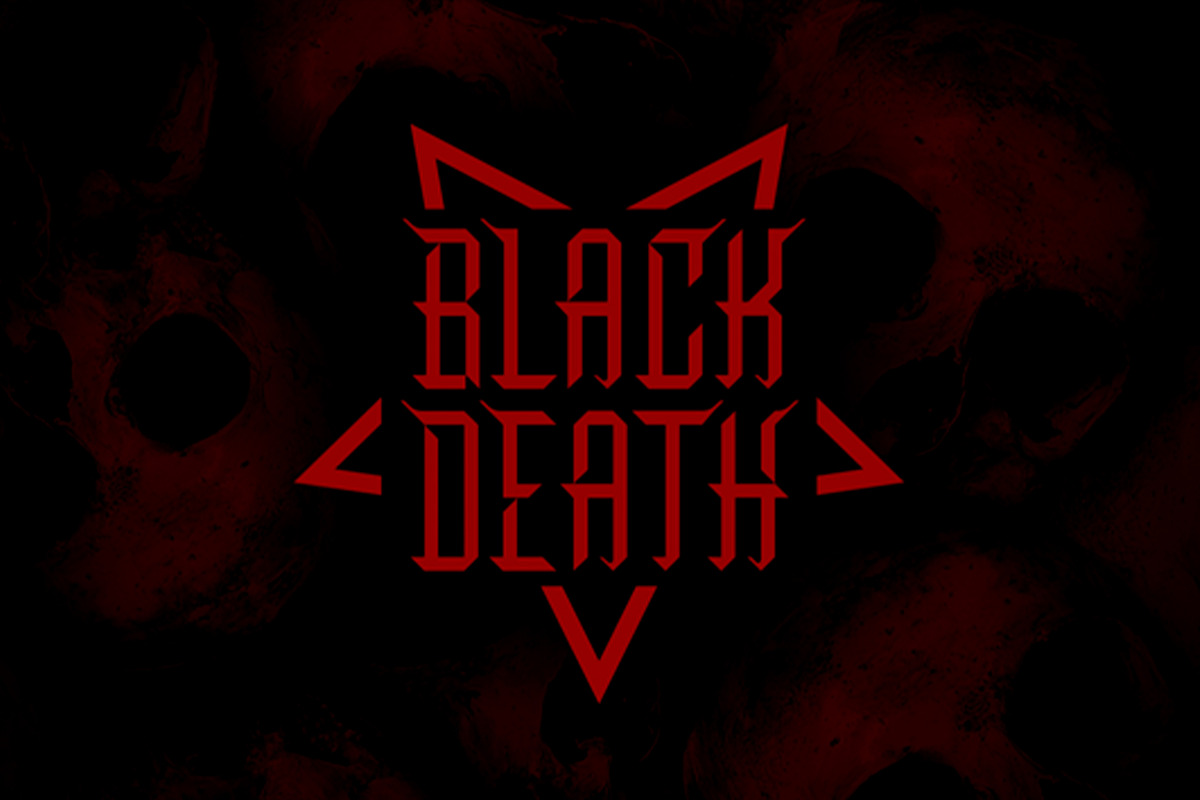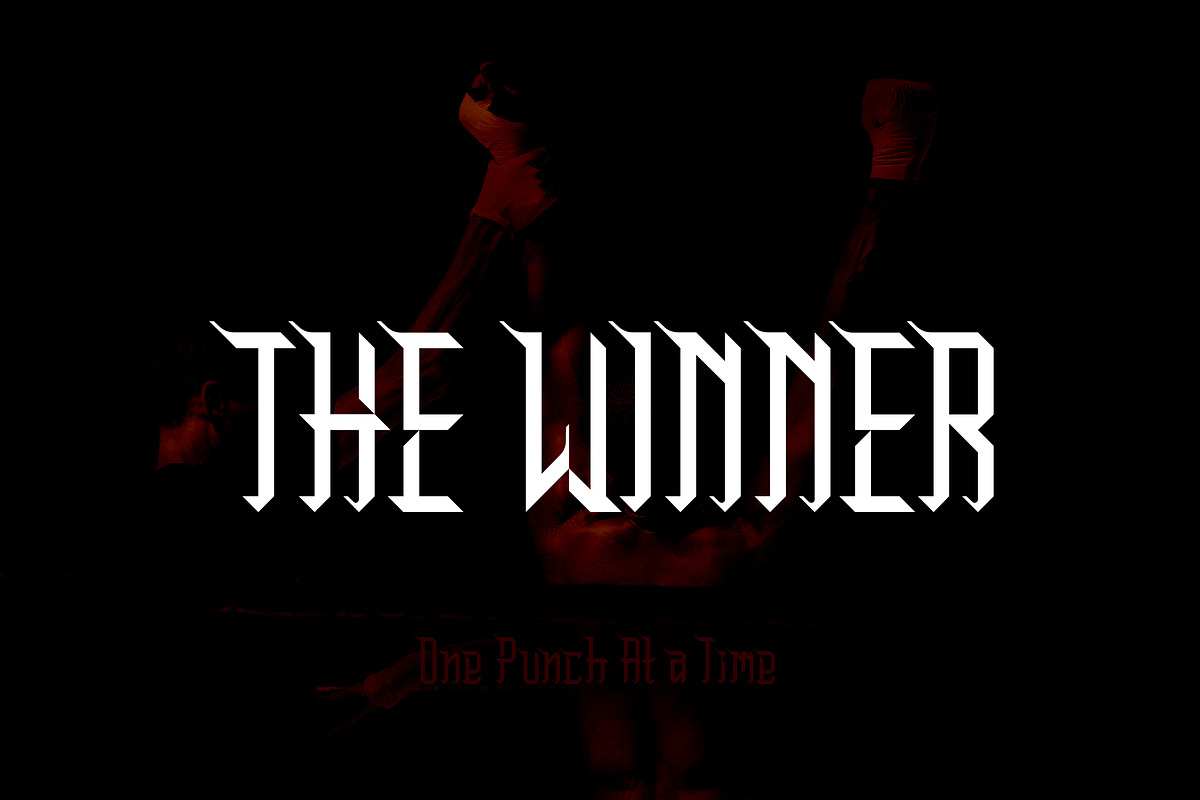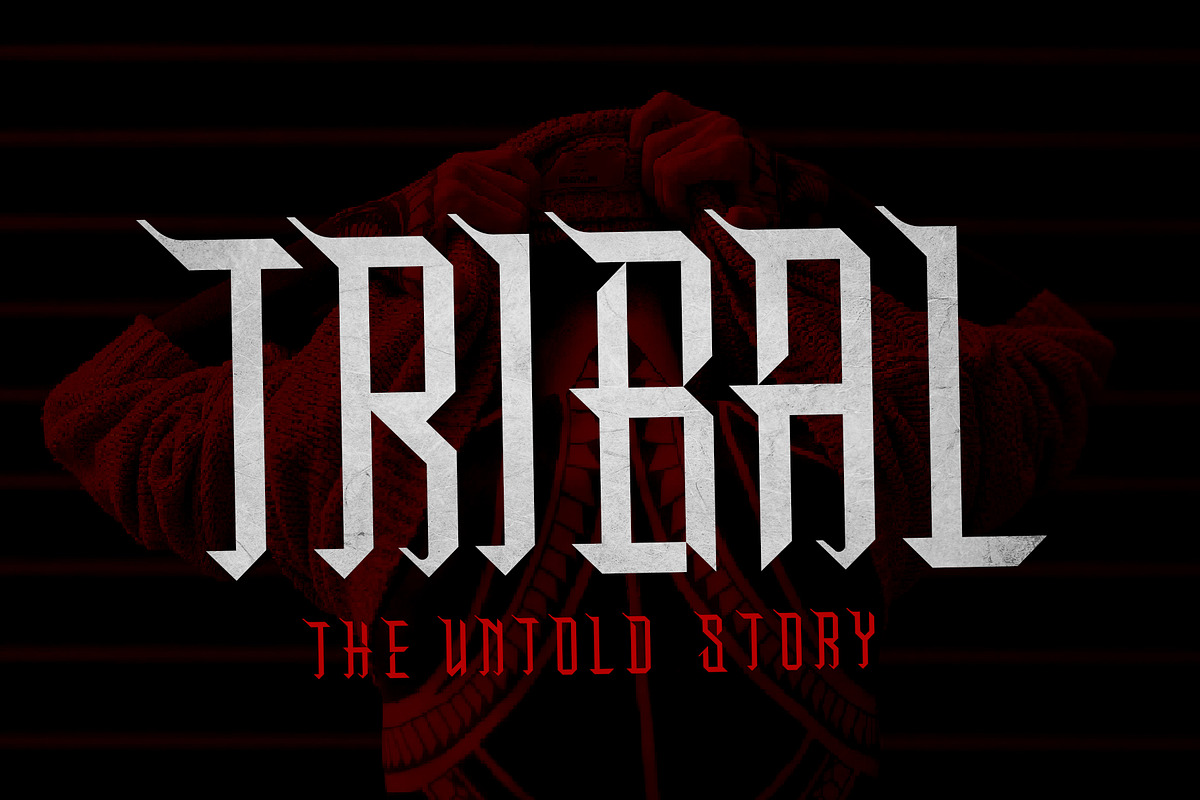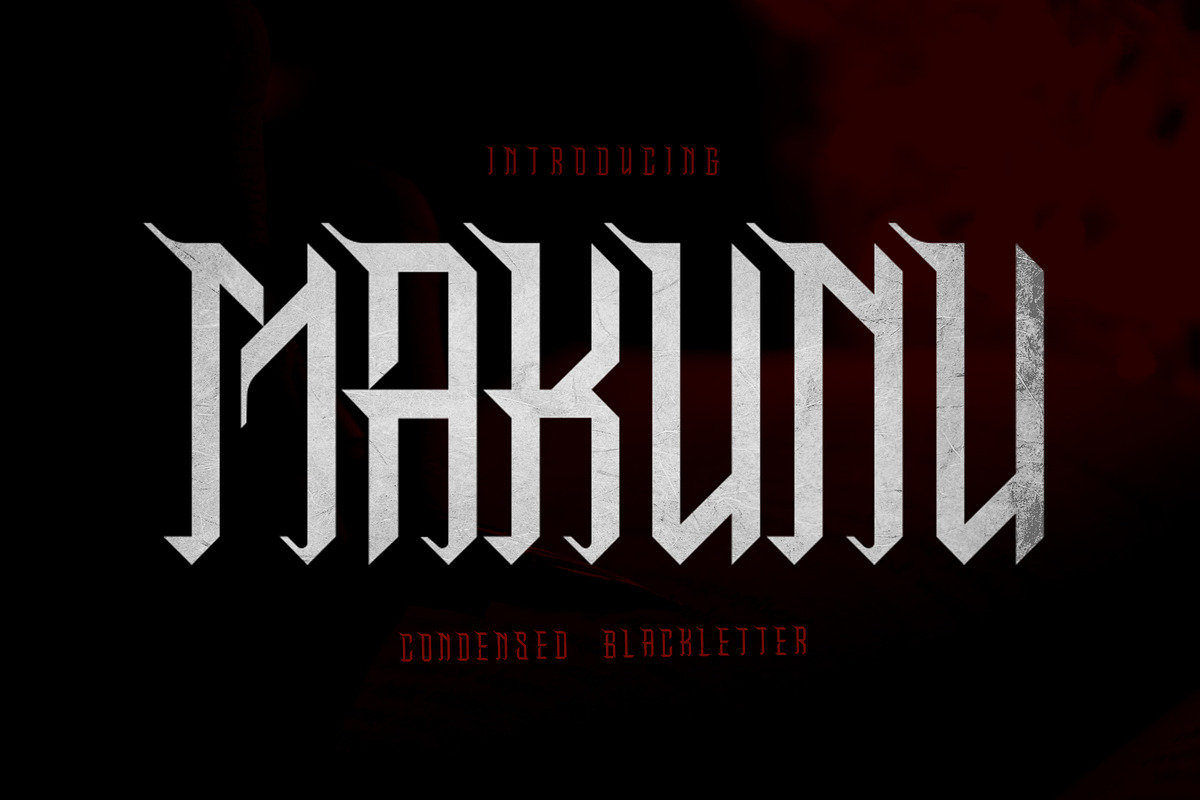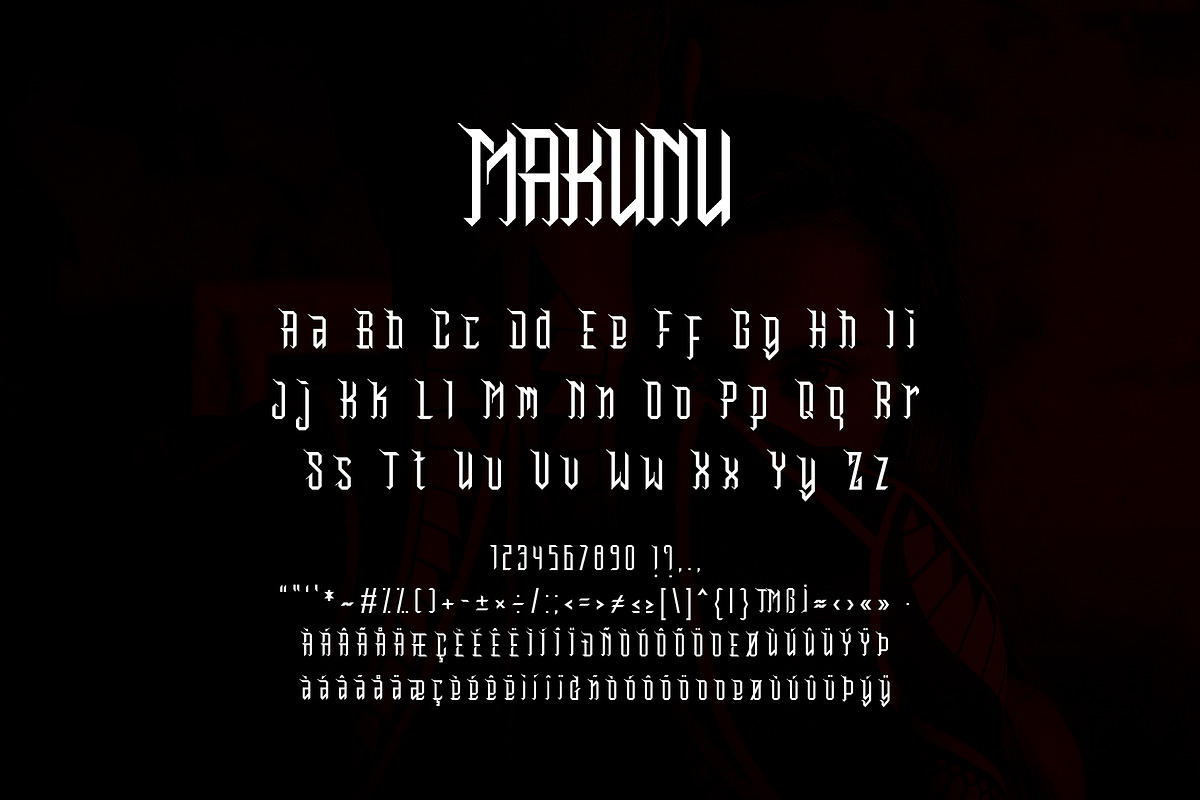
makunu black letter
Makunu Black Letter is a bold and dramatic blackletter font. It is ideal for each of the creative designs that you wish to put forth! Makunu Black Letter font suitable font for tattoos, lettering, logos, branding, clothing, metal music advertisements, titles, promotions, products etc.
Support for most western languages including: Afrikaants, Basque, Breton, Catalan, Danish, Dutch, English, Finnish, French, Gaelic, German, Icelandic, Indonesian, Irish, Italian, Norwegian, Portuguese, Sami, Spanish, Swahili and Swedish.